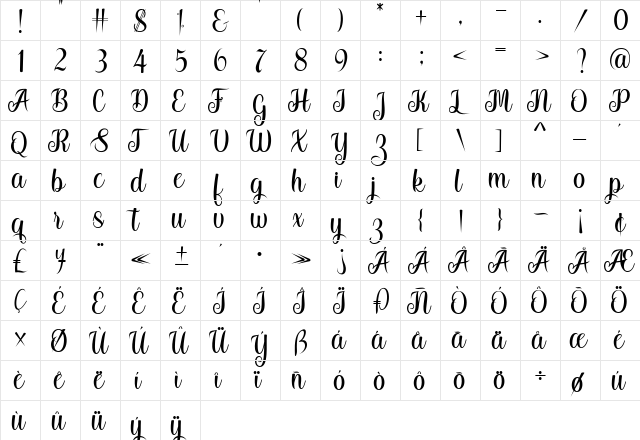
Stayland Regular
Design Context for Stayland Typeface
Stayland is a composed and adaptable typeface that performs quietly and consistently across a wide range of design contexts.